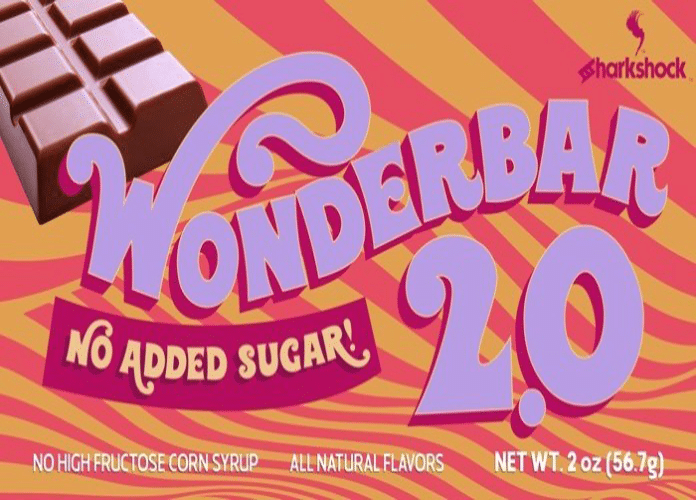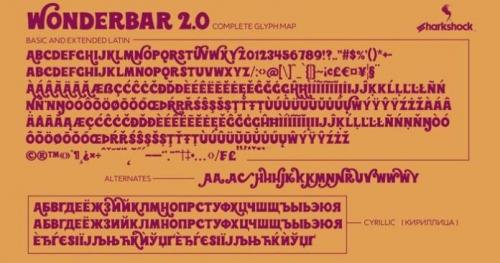
Create gorgeous + timeless designs and Magazine with Wonderbar 2.0 Font, a luxe designer serif. Wonderbar 2.0 Fonts have thick to thin contrast and sleek lines make it perfect for logos, quotes, invitations, weddings, business cards, powerpoint presentations, and more!
- Designer: Sharkshock